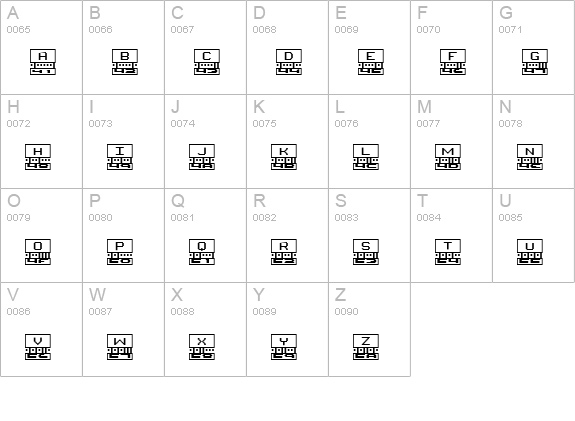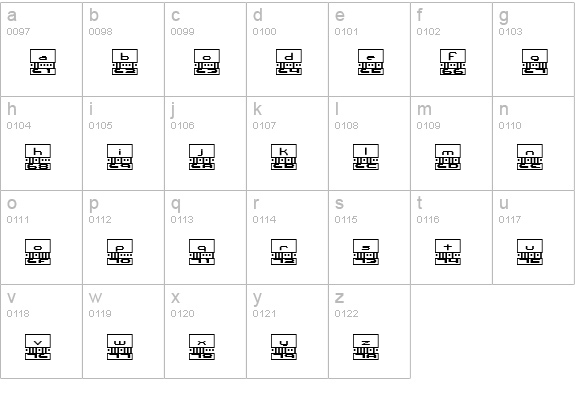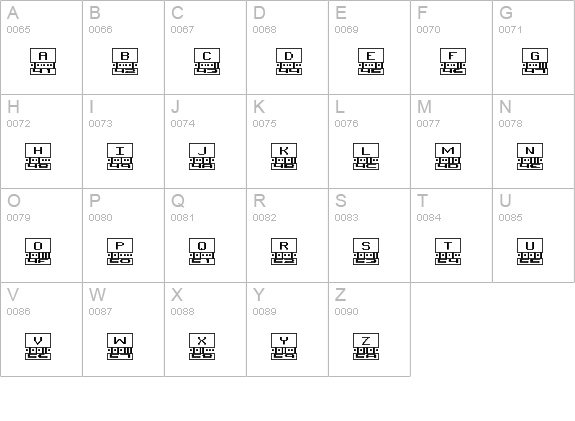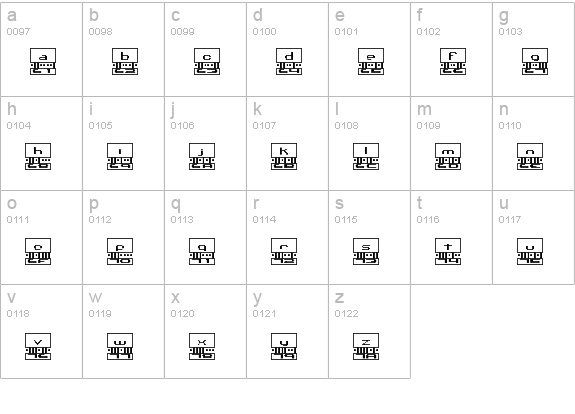
The Binary BRK font is a unique and modern typeface that combines sleek, futuristic design with a touch of digital flair. Its sharp, angular lines and bold letterforms make it perfect for adding a tech-inspired look to your projects. Whether you're creating a website, designing a logo, or crafting a presentation, the Binary BRK font will bring a contemporary edge to your work. Best of all, the Binary BRK font is available for free download at FontsMarket.com. Simply visit the website to access this stylish typeface and start using it in your projects today. Don't miss out on this opportunity to enhance your designs with the cutting-edge style of the Binary BRK font.